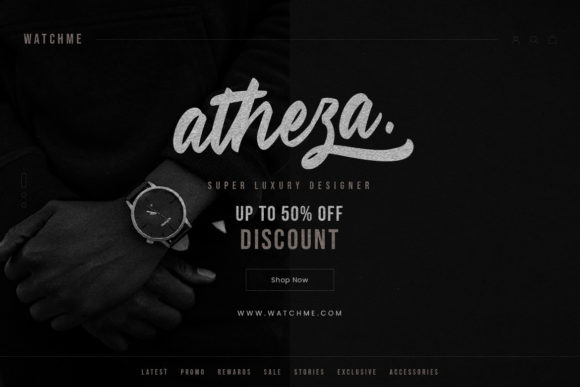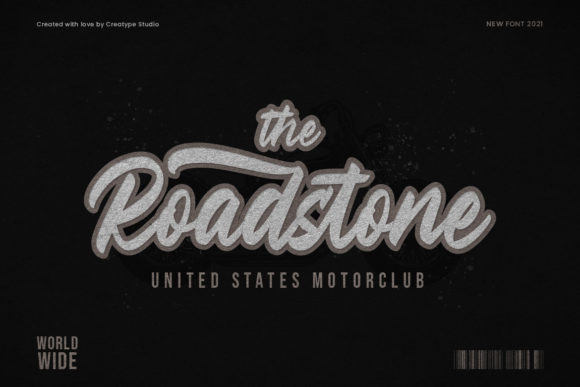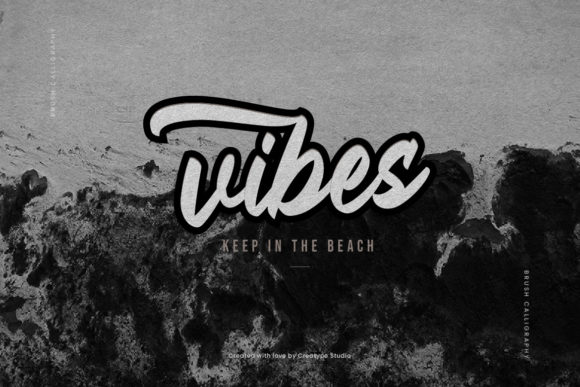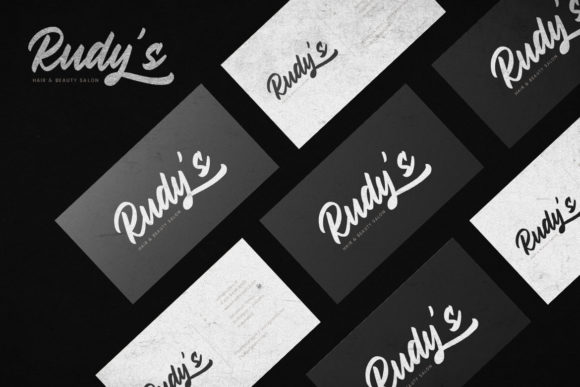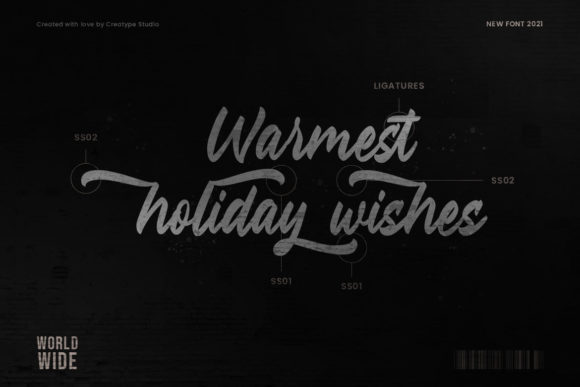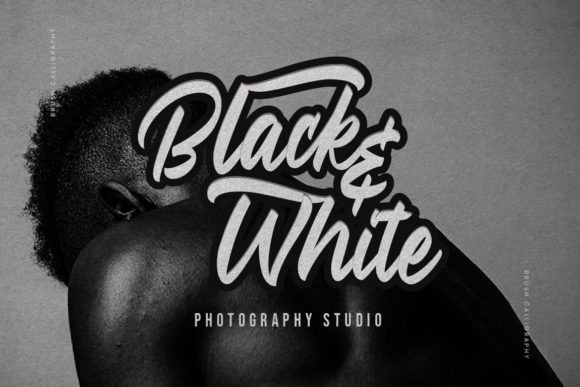
Gonzalles Font: Elevate Your Design with a Stunning Handwritten Style
Are you looking for a font that can add a touch of elegance and sophistication to your design projects? Look no further than Gonzalles Font, a gorgeous and bold handwritten font that is perfect for headlines, logotypes, and more. In this article, we’ll take a closer look at Gonzalles Font, its features, and how you can use it to take your designs to the next level.
What is Gonzalles Font?
Gonzalles Font is a beautifully crafted handwritten font that is designed to give your designs a stylish and unique touch. With its bold and elegant strokes, Gonzalles Font is perfect for creating stunning headlines, logotypes, and titles that will grab attention and leave a lasting impression.
One of the standout features of Gonzalles Font is its PUA (Private Use Area) encoding. This means that you can access all of the amazing glyphs and ligatures with ease, giving you a wide range of creative possibilities. Whether you’re a designer, crafty DIY enthusiast, or simply someone who loves to create, Gonzalles Font is the perfect addition to your font library.
Key Features of Gonzalles Font
• Bold and Elegant Strokes: Gonzalles Font features bold and elegant strokes that are perfect for creating stunning headlines and logotypes.
• PUA Encoded: With PUA encoding, you can access all of the amazing glyphs and ligatures with ease, giving you a wide range of creative possibilities.
• Handwritten Style: Gonzalles Font has a beautiful handwritten style that adds a touch of personality and uniqueness to your designs.
Design Ideas with Gonzalles Font
Gonzalles Font is a versatile font that can be used for a wide range of design projects. Here are a few ideas to get you started:
• Logotypes and Branding: Use Gonzalles Font to create stunning logotypes and branding materials that will help your business stand out.
• Headlines and Titles: Gonzalles Font is perfect for creating eye-catching headlines and titles for your blog posts, articles, and social media graphics.
• Invitations and Cards: Add a touch of elegance and sophistication to your invitations and cards with Gonzalles Font.
• Signage and Displays: Use Gonzalles Font to create stunning signage and displays that will grab attention and leave a lasting impression.
In conclusion, Gonzalles Font is a gorgeous and bold handwritten font that is perfect for designers and crafters who want to add a touch of elegance and sophistication to their designs. With its PUA encoding and wide range of glyphs and ligatures, Gonzalles Font offers endless creative possibilities. Whether you’re creating logotypes, headlines, or invitations, Gonzalles Font is the perfect choice. So why wait? Download Gonzalles Font today and take your designs to the next level!